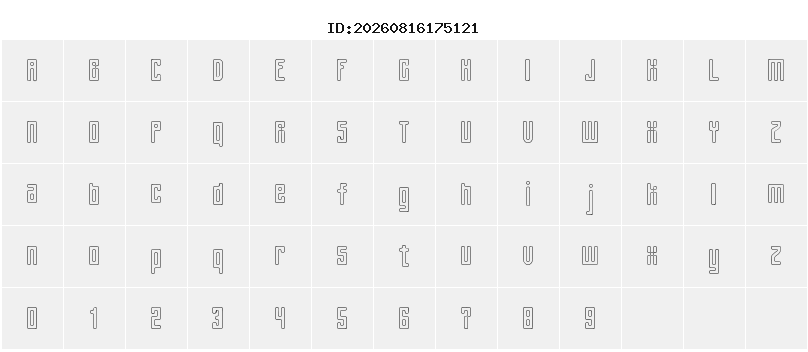
Spinach Outline Preview
• Font Name: Spinach Outline
• Font ID: Spinach Outline: Version 1.00
• Full Font Name: Spinach Outline
• Version: Version 1.00, April 9, 2006, initial release
• PostScript Name: Spinach Outline
• Character Count: 98
About Spinach Outline.ttf
Spinach Outline.ttf is a modern, elegant sans-serif font designed for ultimate readability and visual harmony. Perfect for branding, headlines, web design, and print materials.